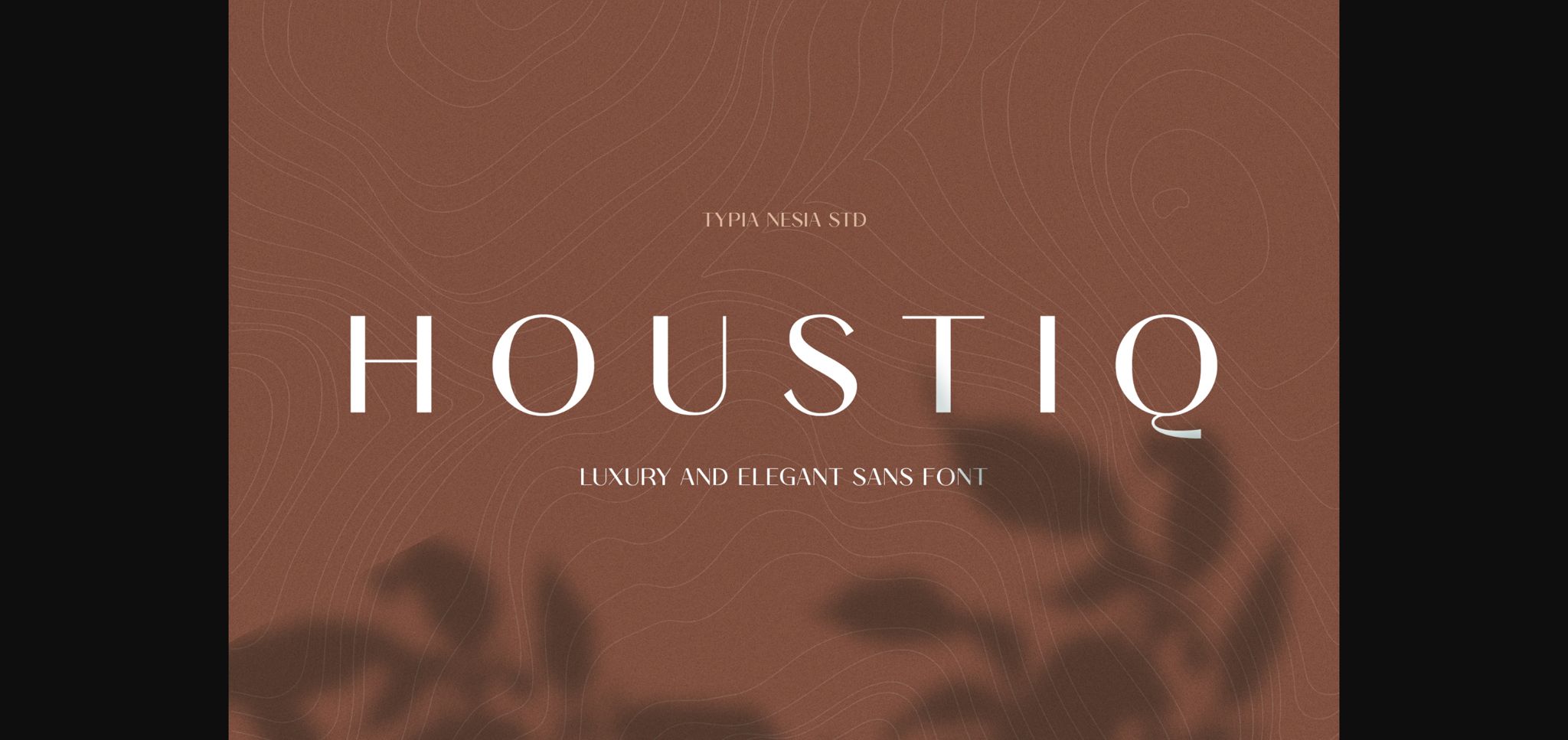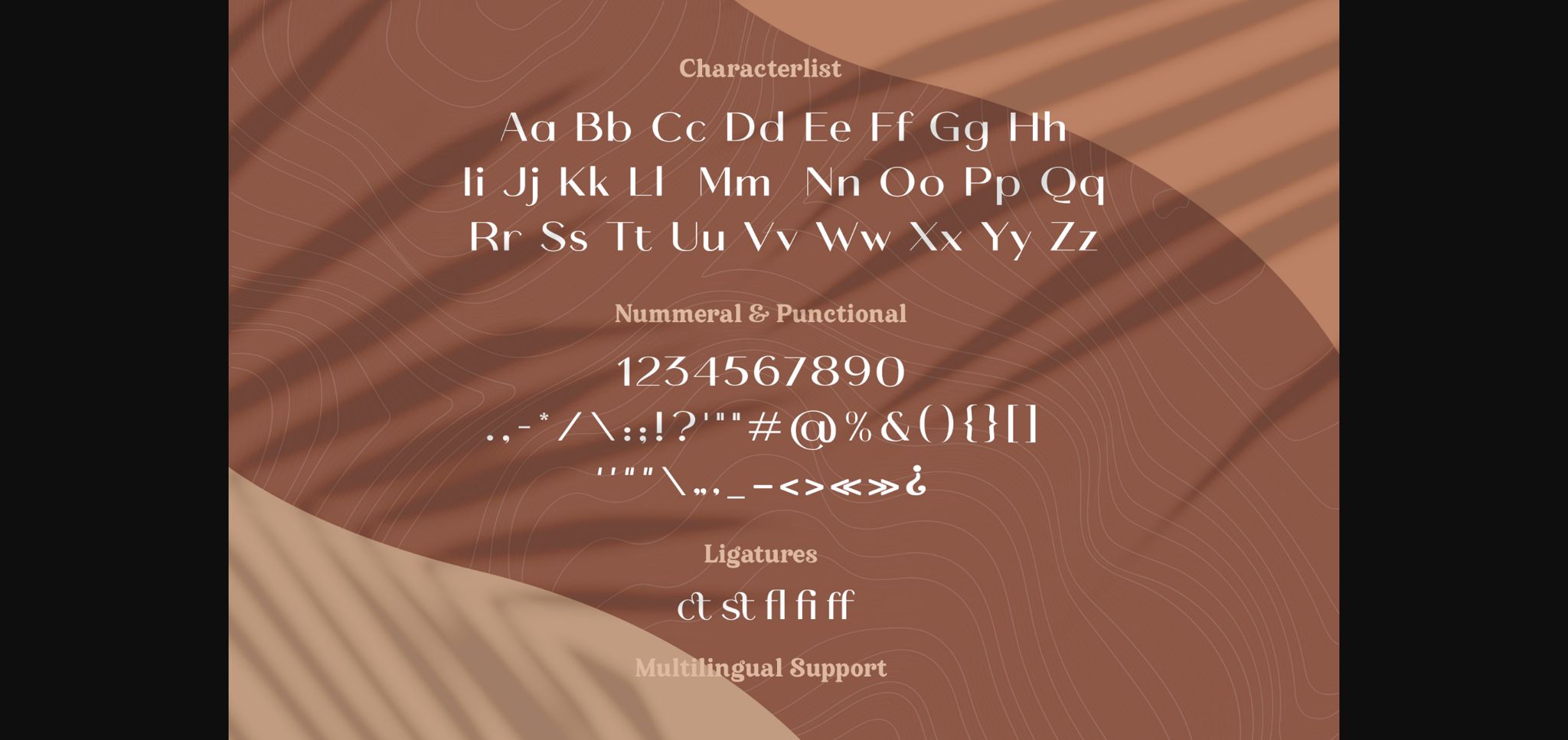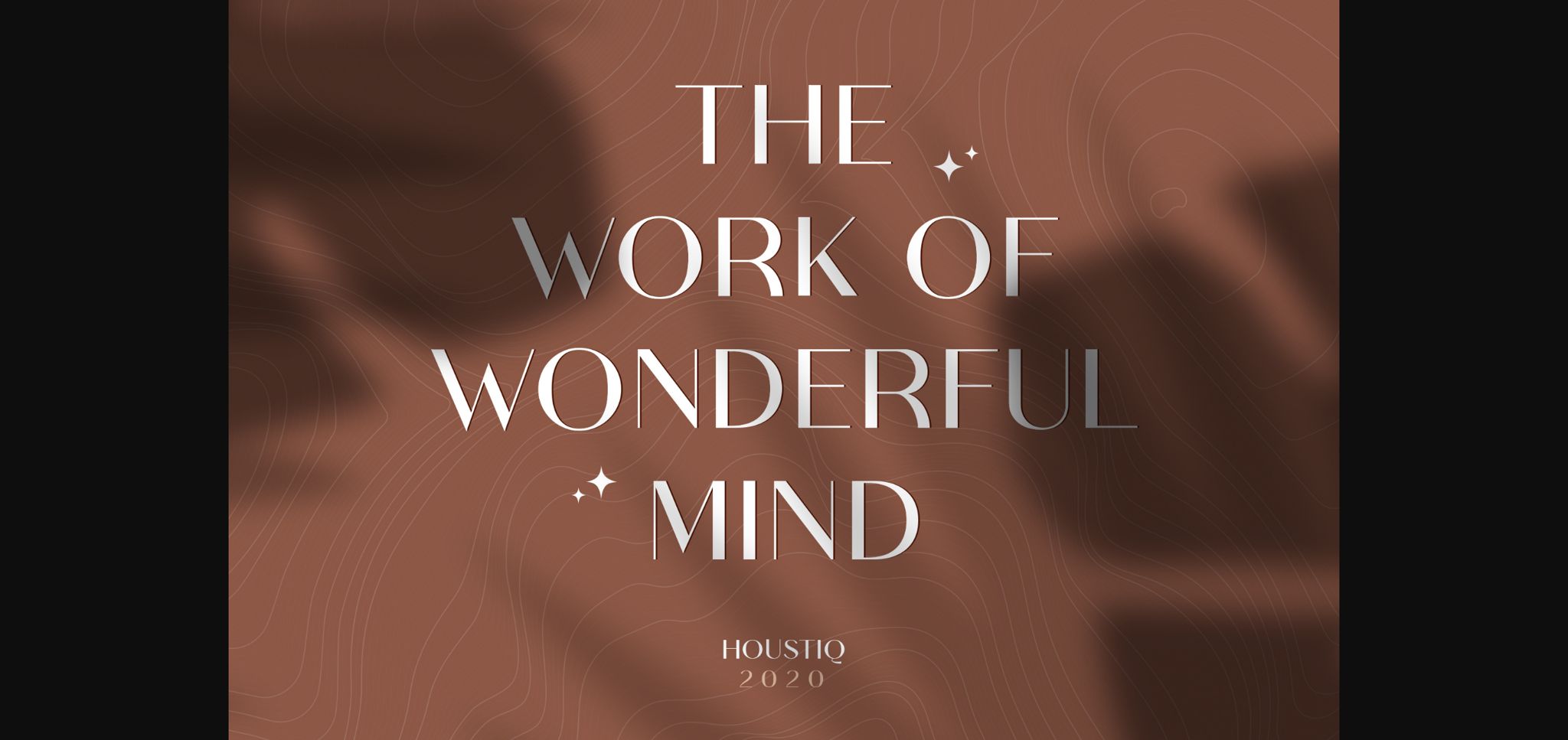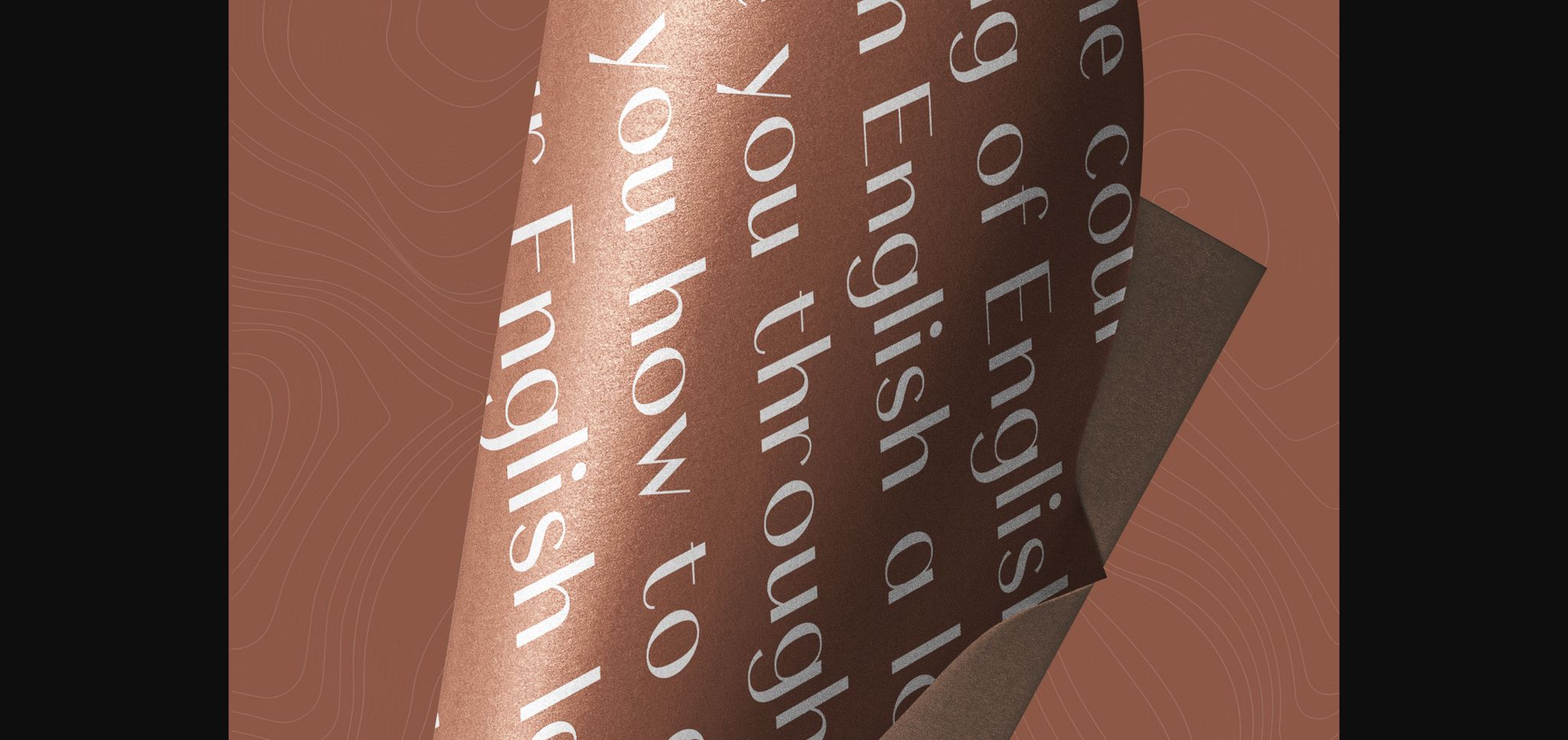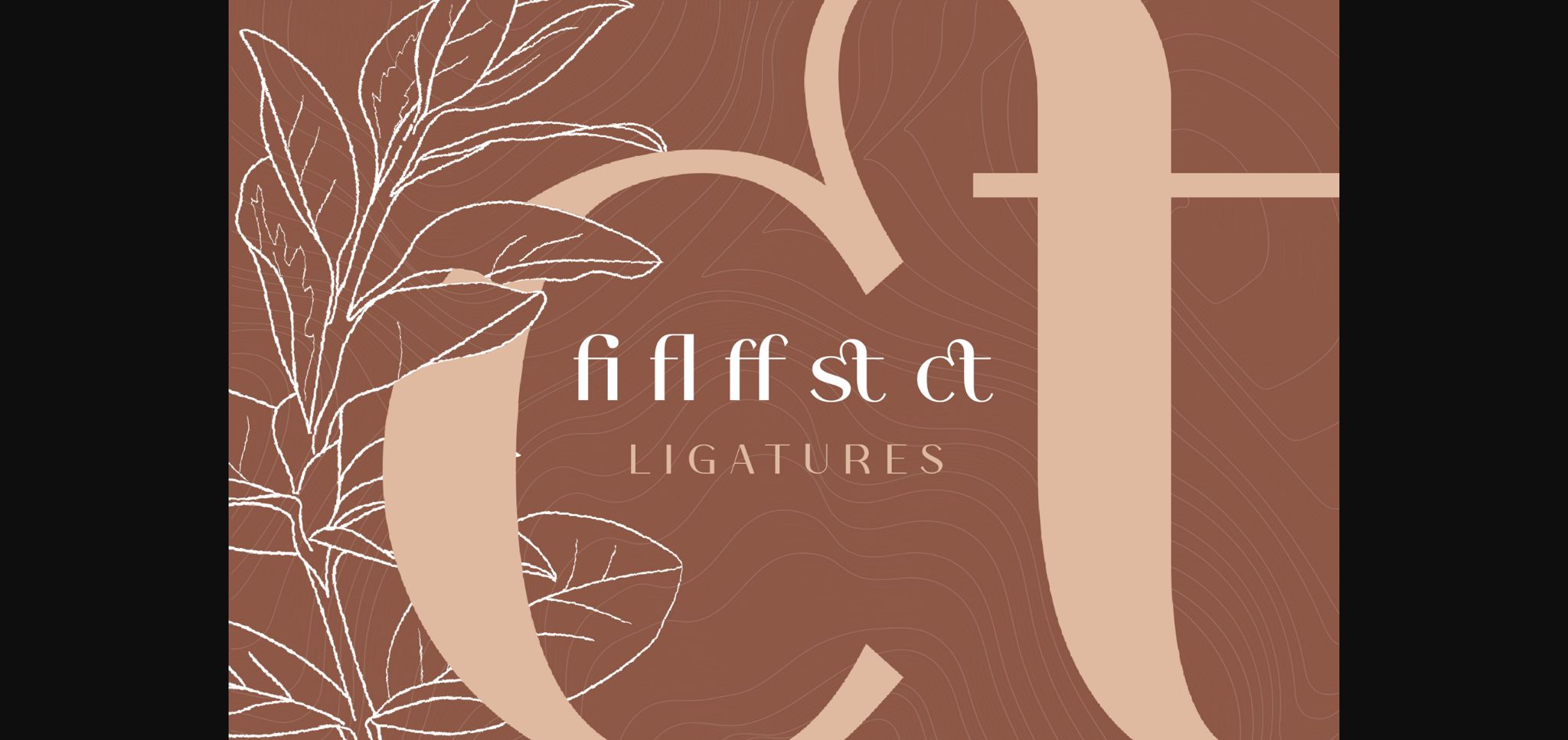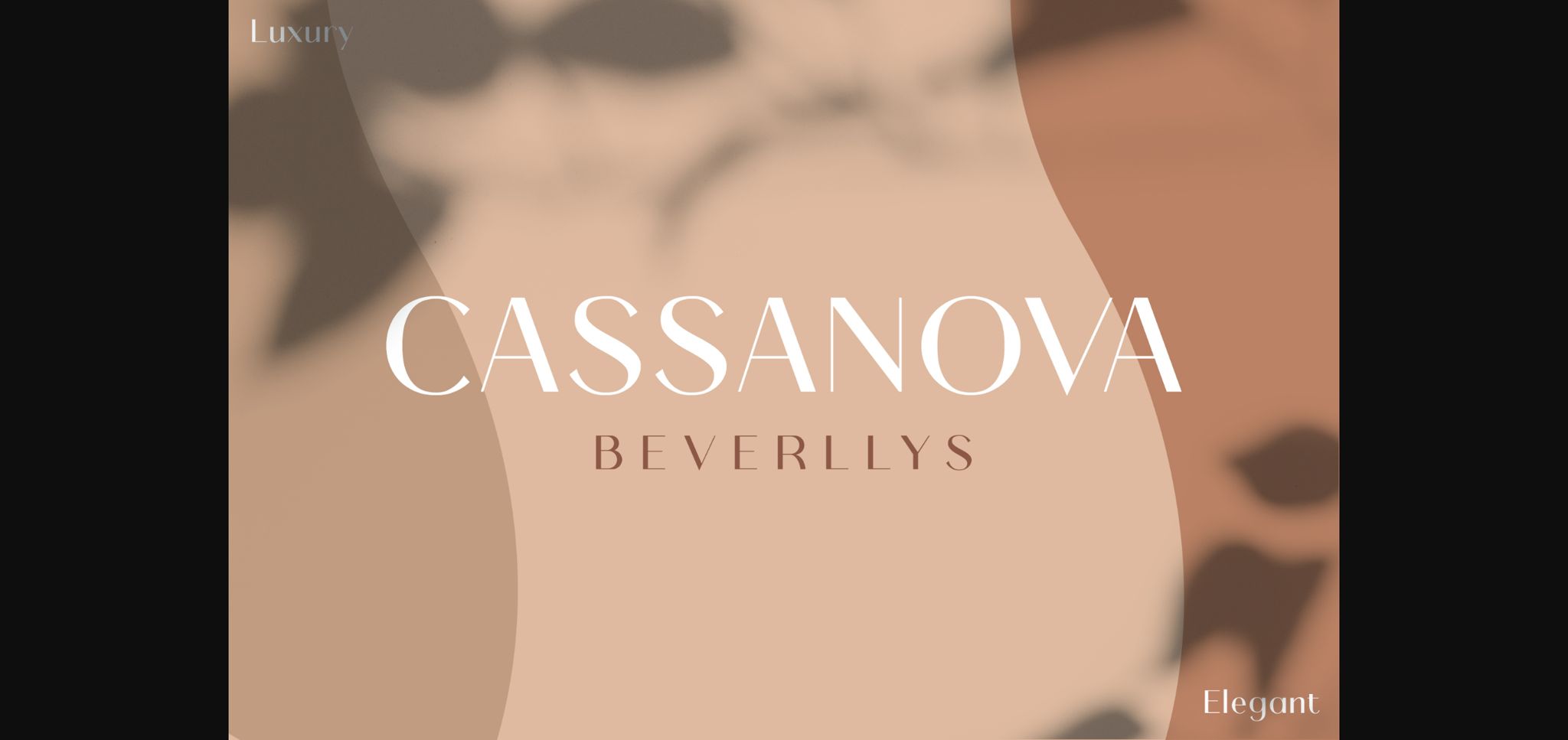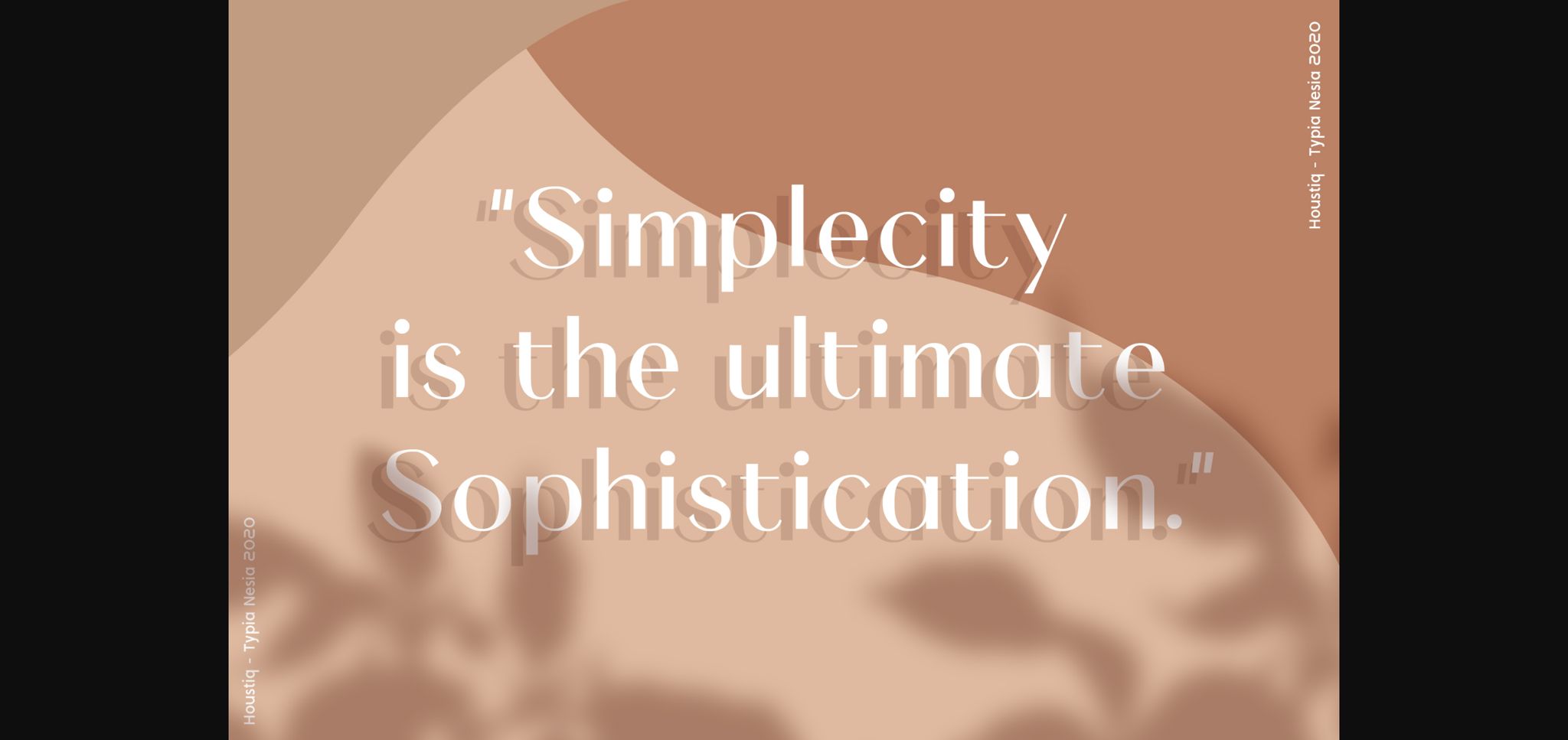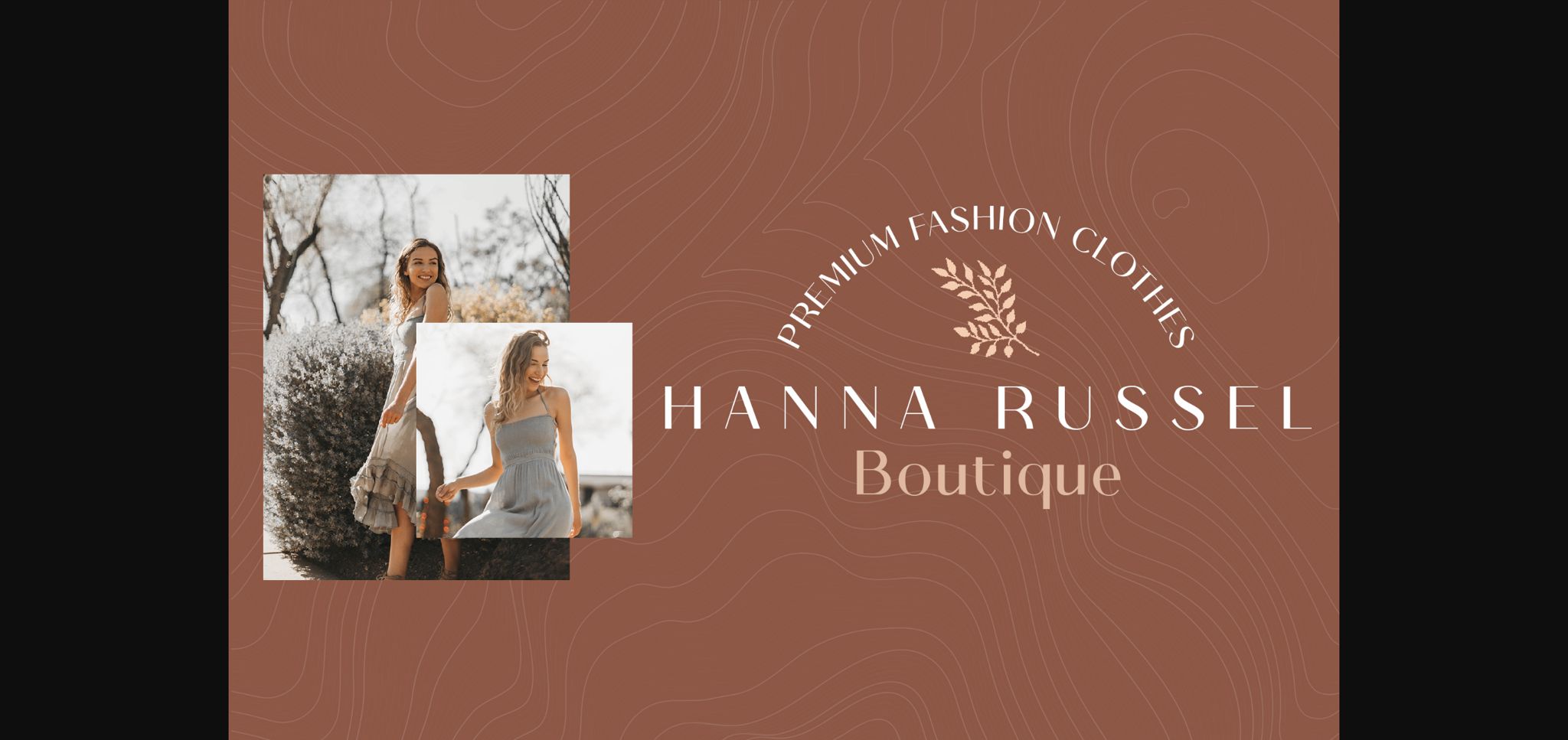
Houstiq Font
About Houstiq Font
Houstiq emerges as an epitome of elegance and distinction in the realm of sans serif fonts. Its refined demeanor and versatile nature make it an ideal choice for a plethora of design projects, effortlessly elevating them to new levels of sophistication and allure.
The allure of Houstiq lies in its seamless adaptability across a diverse spectrum of projects. Whether you’re fashioning a sleek logo, sculpting engaging headlines, or fashioning chic branding materials, this font’s timeless elegance imbues your creations with an air of refinement and sophistication. Its clean lines and harmonious proportions provide a sturdy foundation for unleashing creativity, ensuring your designs radiate with polished sophistication.
A defining attribute of Houstiq is its unwavering commitment to readability and clarity across various mediums and platforms. Whether encountered on screens or in print, Houstiq’s meticulously crafted characters guarantee optimal legibility, enhancing user engagement and facilitating seamless communication of your message.
Moreover, Houstiq’s elegant and distinct design lends itself seamlessly to search engine optimization (SEO) efforts. Its crisp typography fosters improved readability, a parameter search engines prioritize when assessing content. By integrating Houstiq into your digital footprint, you can amplify the visibility and discoverability of your online presence, attracting a wider audience and fostering increased engagement.
Furthermore, Houstiq’s refined appearance bestows a sense of sophistication and exclusivity upon any design composition. Whether employed for headlines, body text, or graphic elements, Houstiq exudes an enduring elegance that captivates and inspires.
In summary, Houstiq transcends its status as a mere font, emerging as a versatile design asset that empowers you to craft projects radiating with effortless style and sophistication. With its elegant and distinct sans serif design, Houstiq imbues your endeavors with an aura of timeless beauty and charm. Embrace the versatility of Houstiq and witness your creations flourish with understated elegance and refined allure.